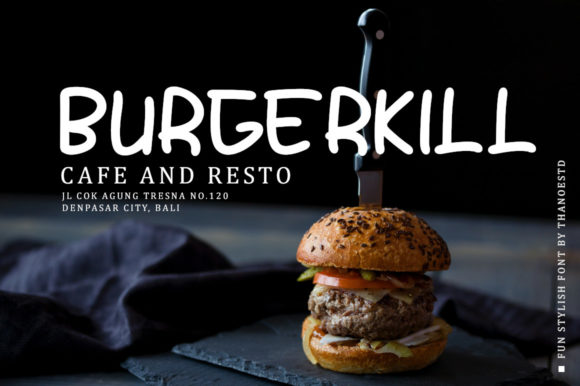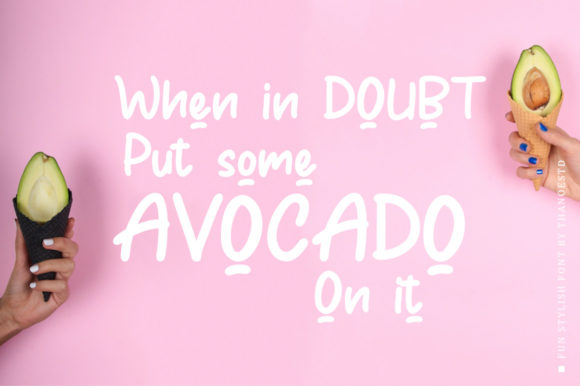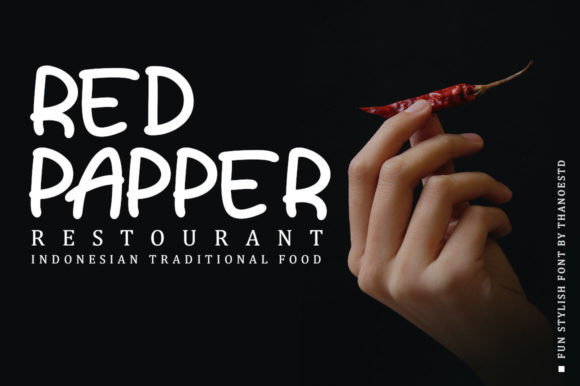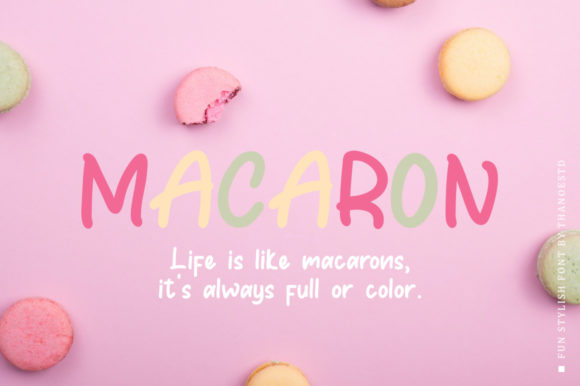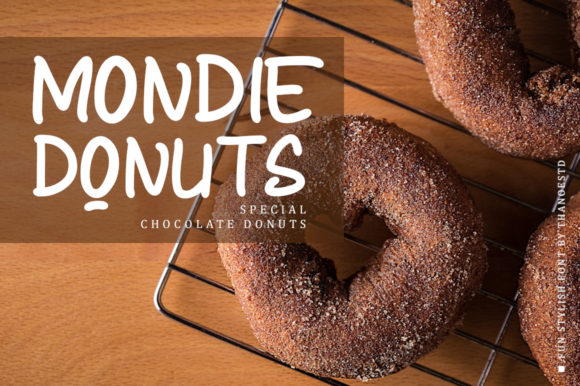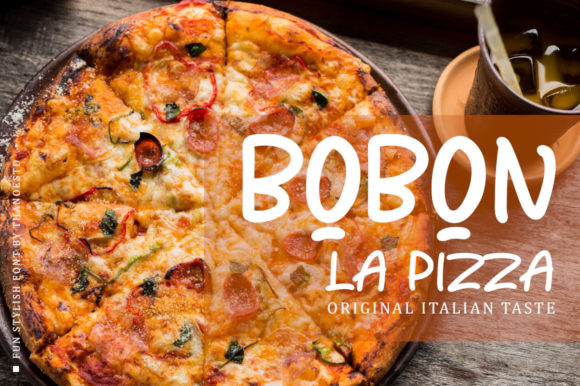
Introduction to Lemonice Font
Have you ever found yourself in a creative rut, staring at a blank canvas with no inspiration in sight? For many designers, that moment of blankness is a familiar feeling. But what if you could infuse your designs with a dash of personality and whimsy? Enter the Lemonice Font, a delightful and smooth handwritten font that’s sure to bring a smile to your face.
Key Features of Lemonice Font
- Unique, hand-drawn style with a touch of whimsy and charm
Honest Review: Lemonice Font
I recently had the chance to work with the Lemonice Font, and I must say it’s been a delightful experience. This font is a great addition to any design project, offering a fresh and modern look.
- ✨ The font is incredibly versatile, suitable for both digital and print media.
- ⚠️ The font may not be suitable for extremely large or small text sizes, as it can become pixelated.
- ⚠️ Some users may find the font too simplistic or lacking in unique character.
Overall, I’m impressed with the quality and potential of the Lemonice Font. While it may not be perfect for every creative project, it’s certainly a valuable design resource to have in your toolkit.
Using the Font in Creative Projects
The Lemonice Font is commonly used in a variety of design projects, including:
- Graphic novels and comic books
- Website headers and footers